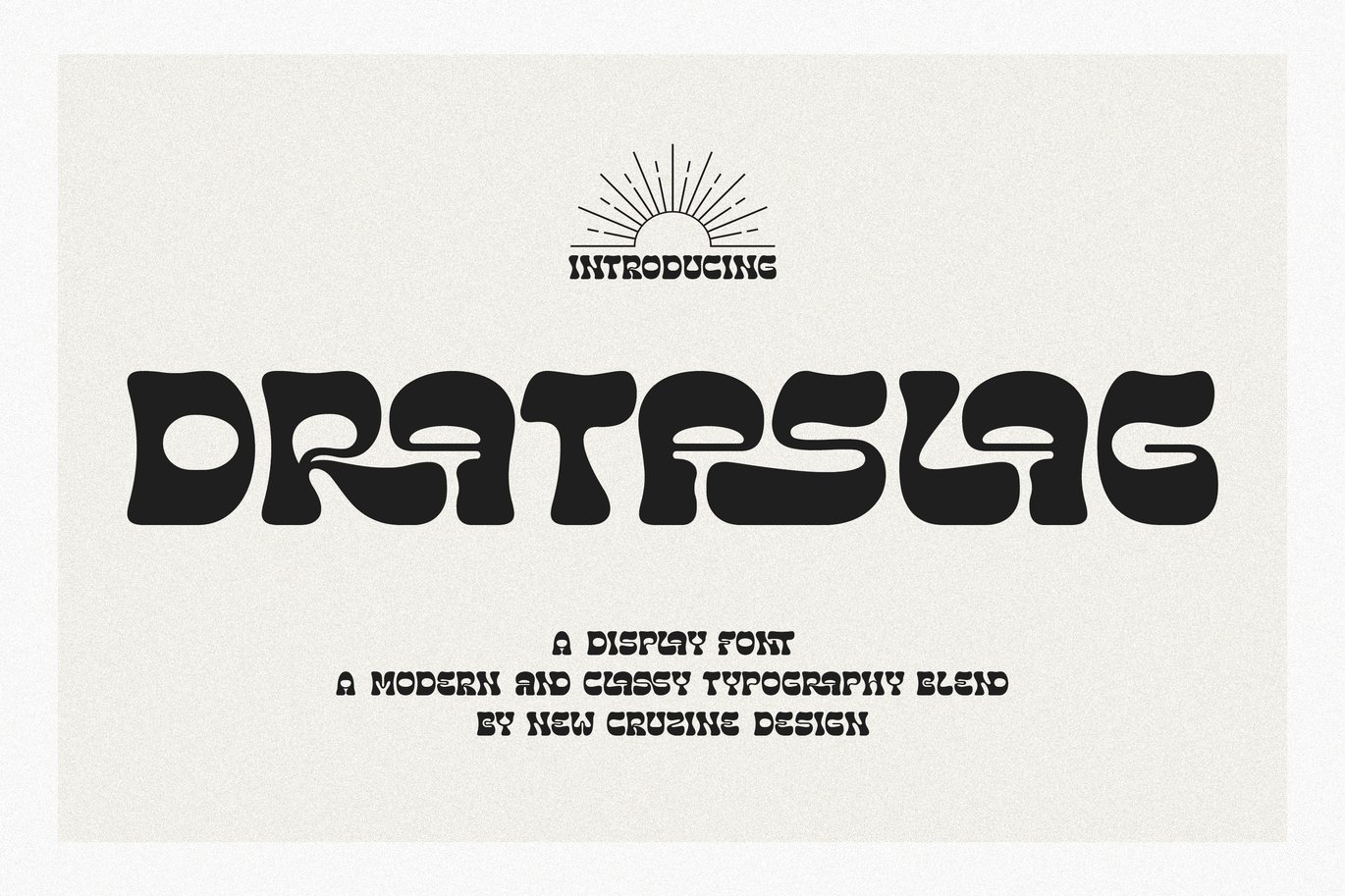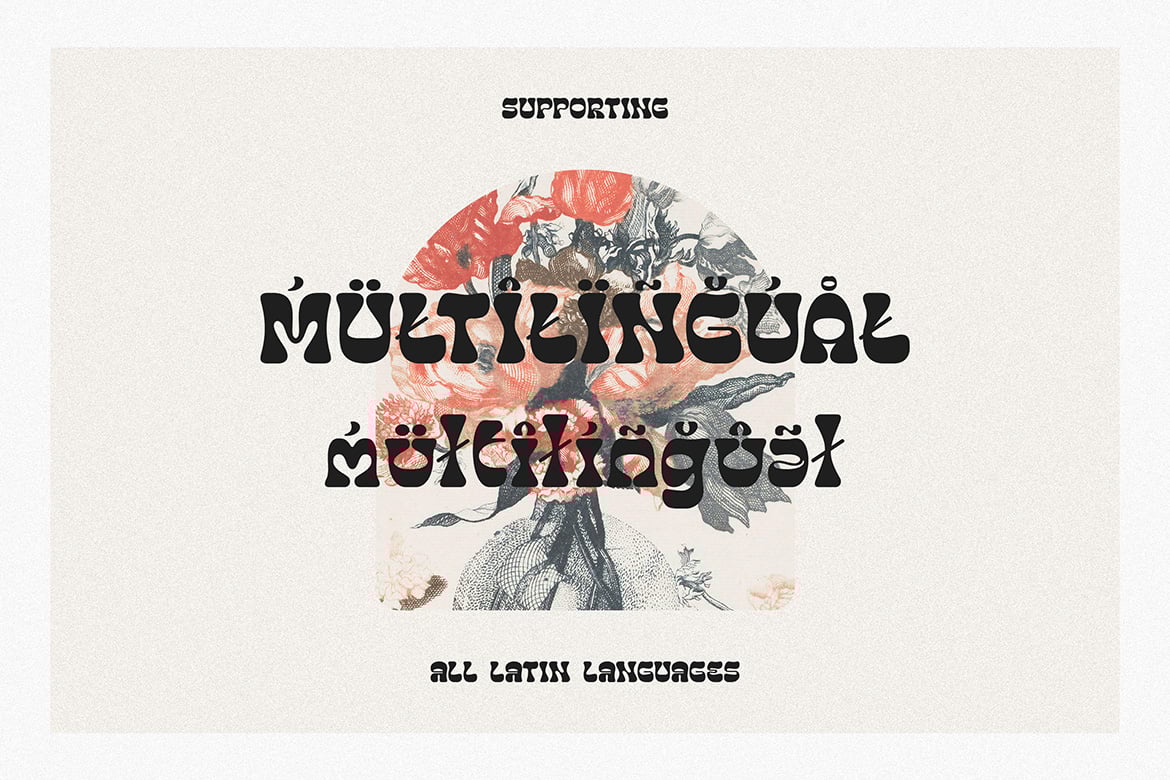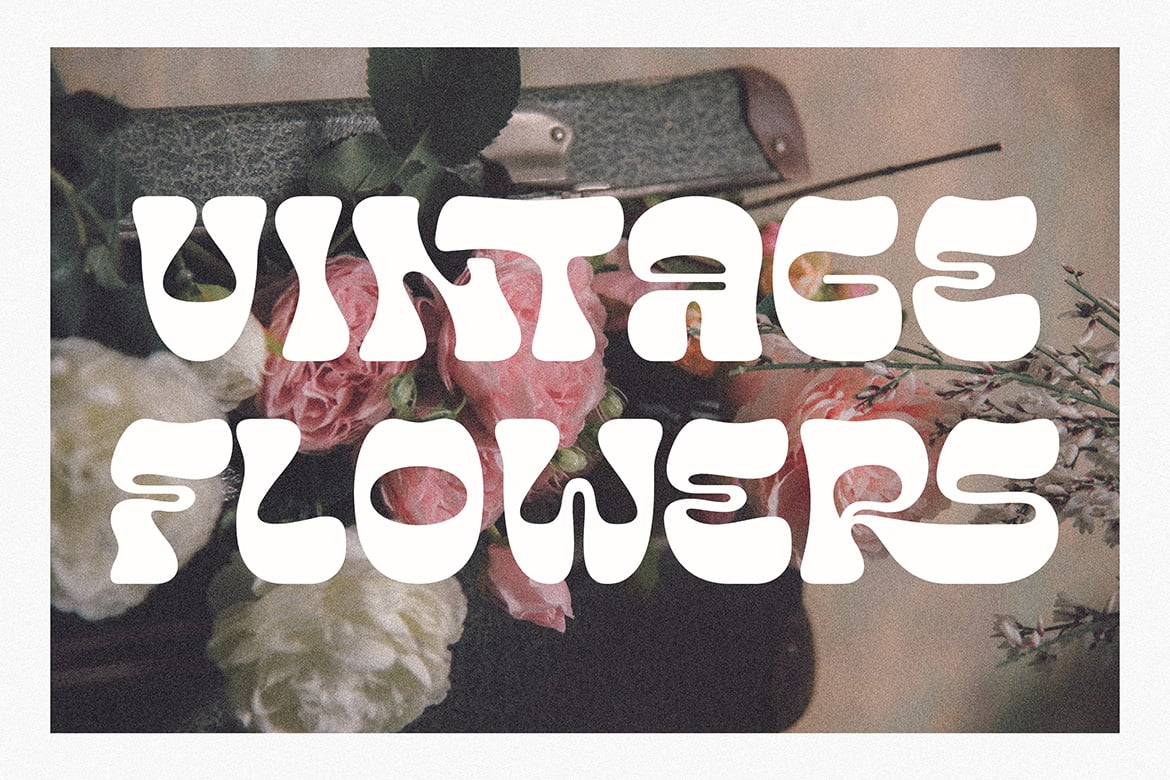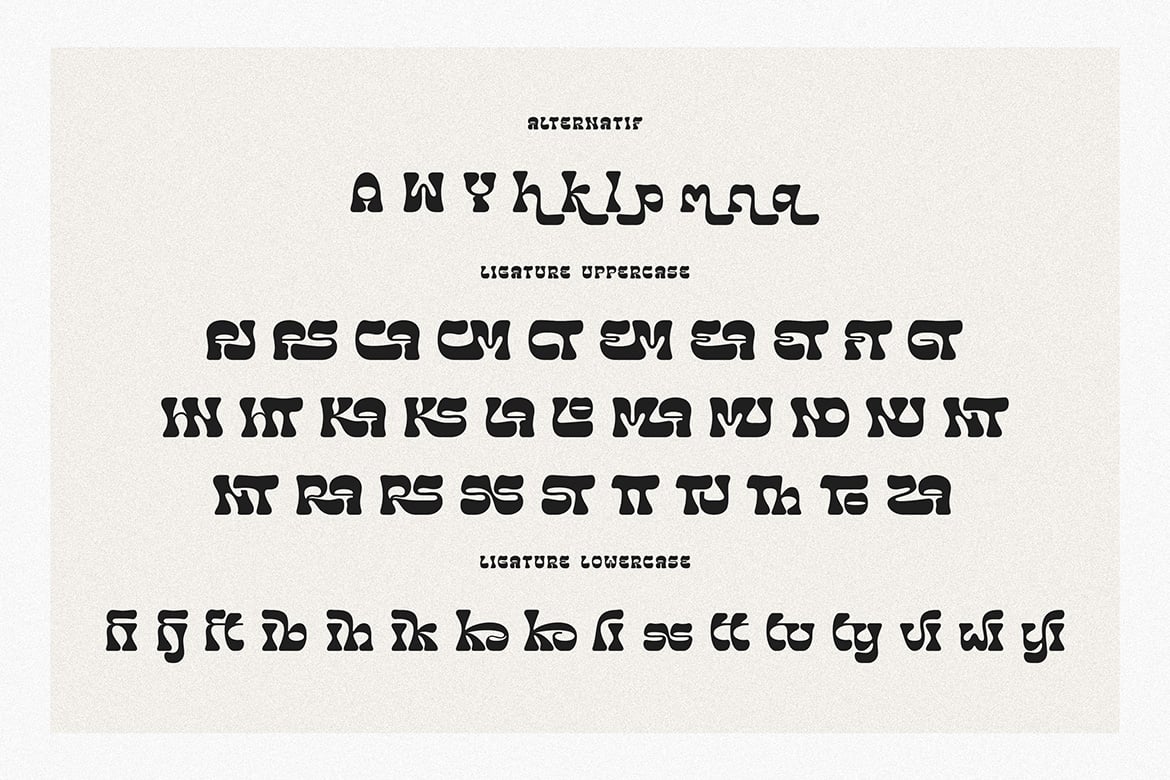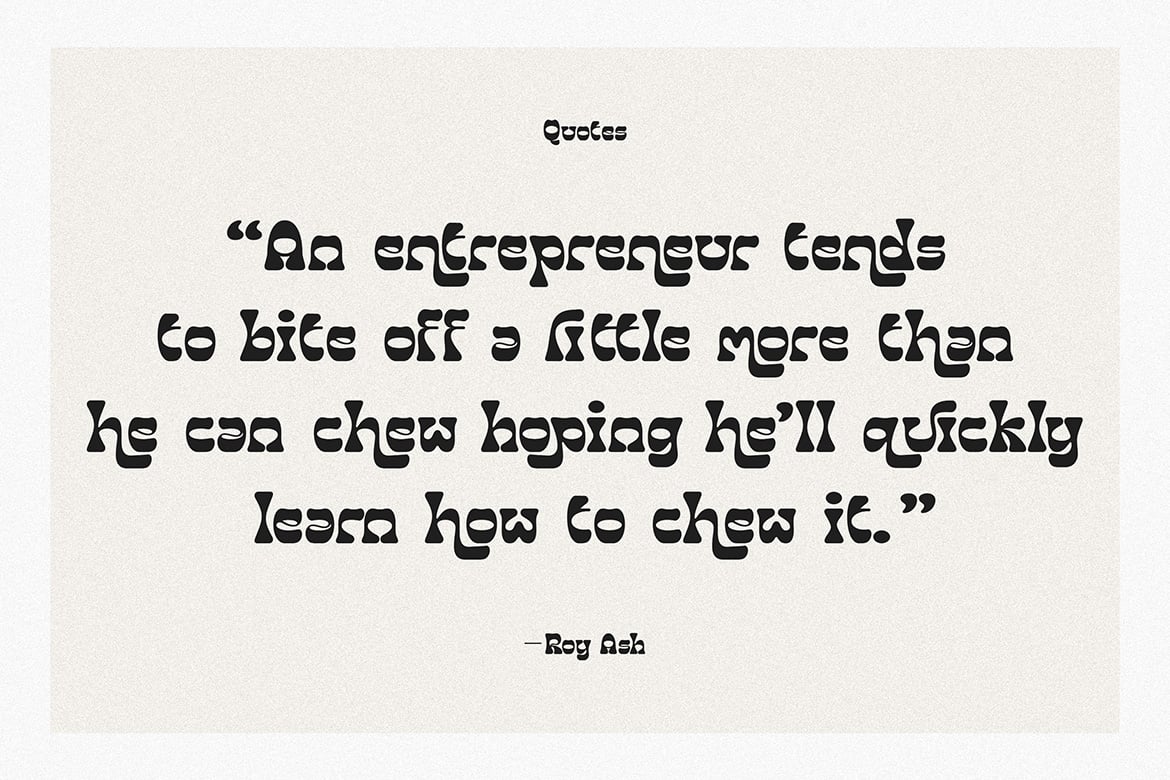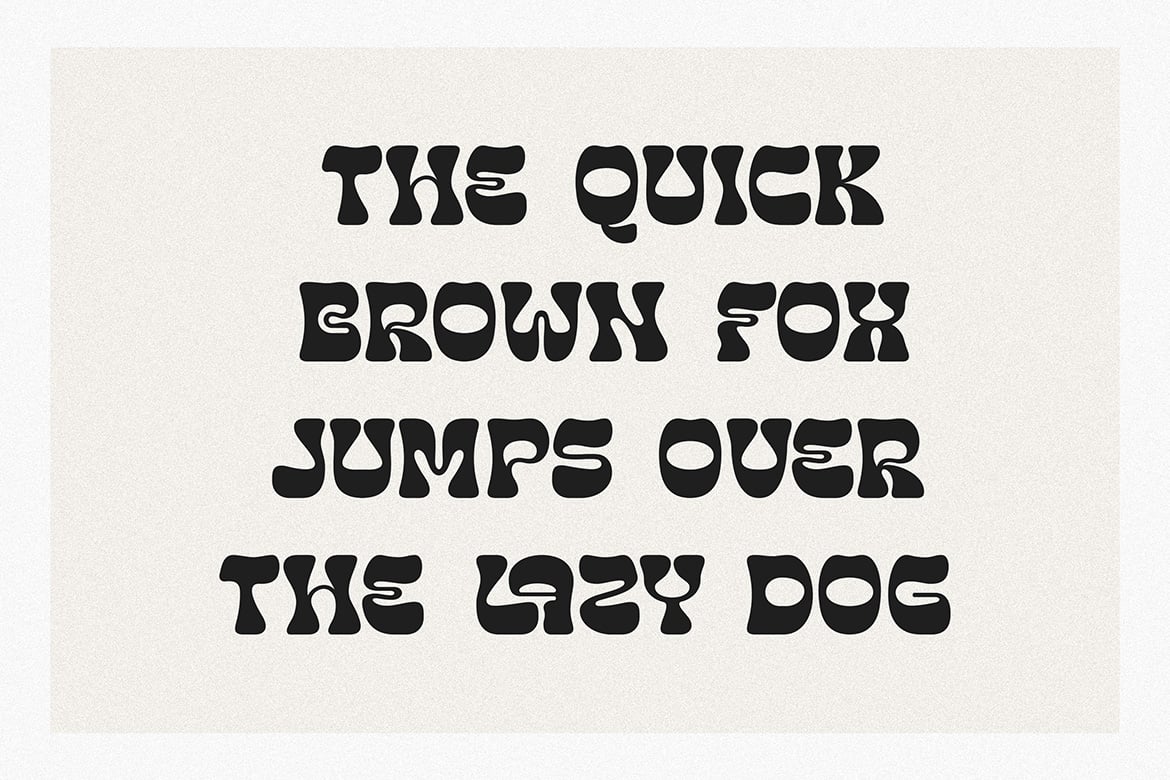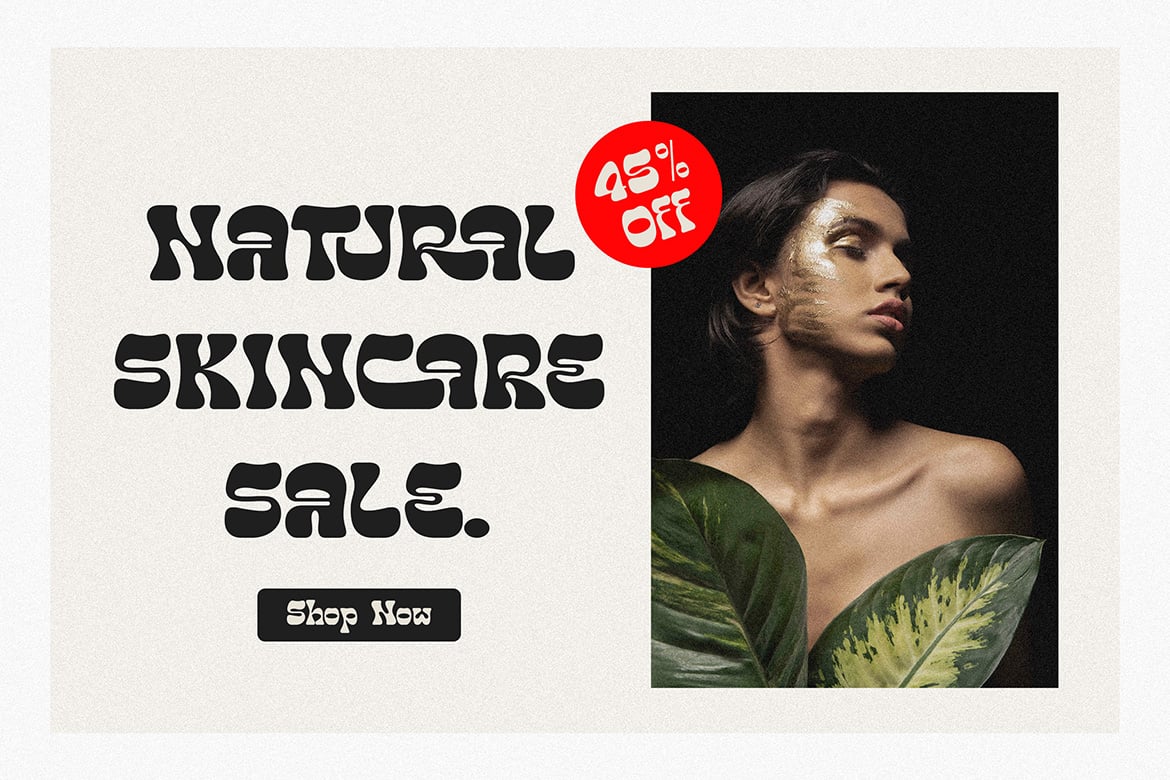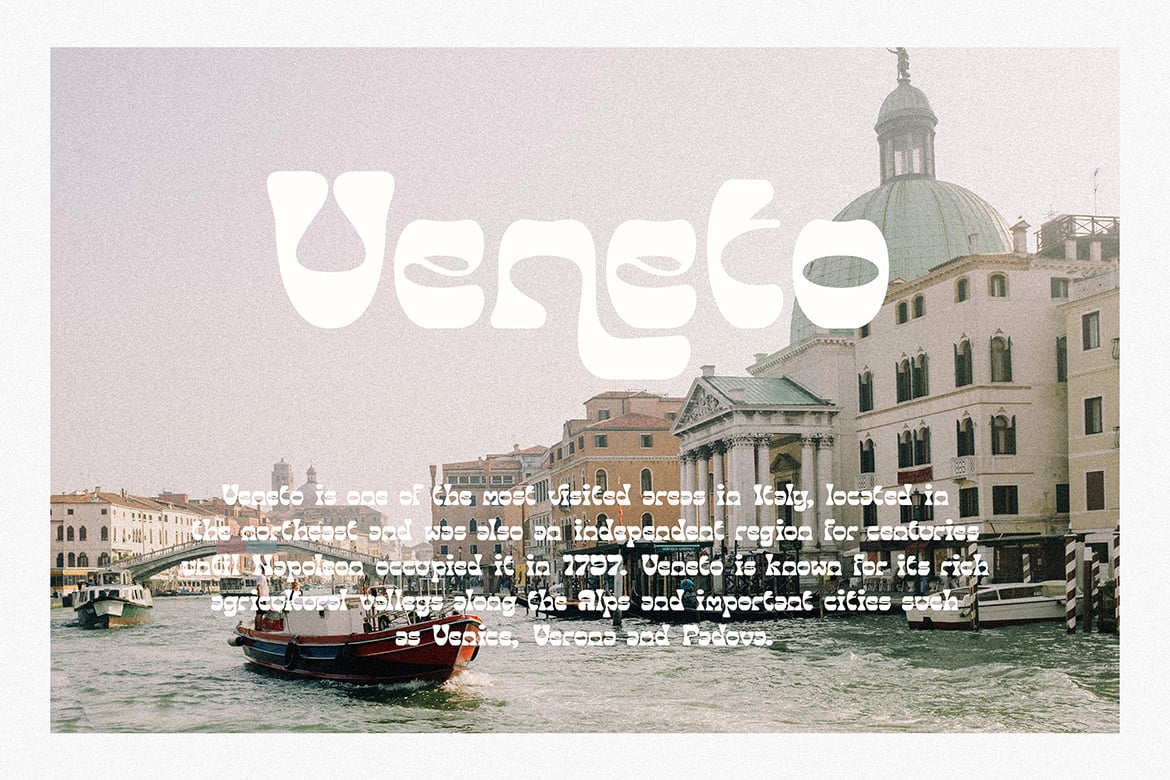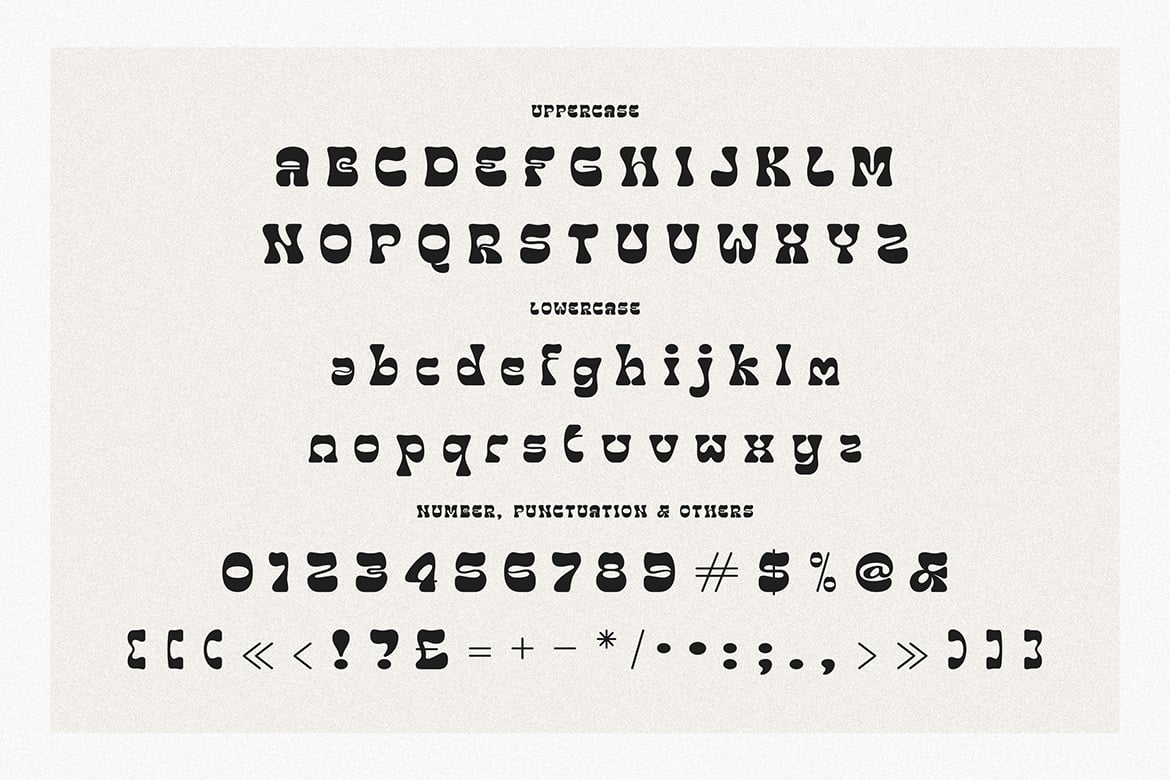
Drataslag Groovy Artistic Font
Trendy, groovy, artistic & retro style font for your new modern projects. Elegant, artistic, western and funky style on Drataslag font will be great for any branding project. Lot of alternates and ligatures will help you to create unique and original logo design or website header! Enjoy π
- Alternate characters
- Lot of ligatures
- Great for modern branding projects!